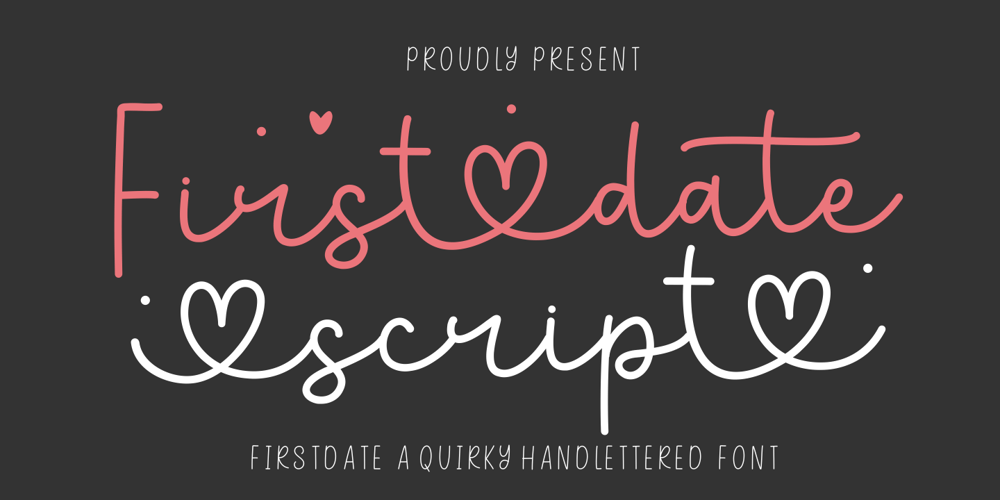
Firstdate Script Font Family was designed by Dede Mulyadi and published by HRDR. Firstdate Script contains 1 styles and family package options. Introducing Firstdate Script our newest love font with quirky style – where every curve, every loop, whispers tales of affection and devotion. Get ready to express your love in a whole new way with our enchanting love font.This font perfect for headings, flyer, greeting cards, product packaging, book cover, printed quotes, logotype, apparel design, album covers, etc, or just adding a handwritten touch to any project .